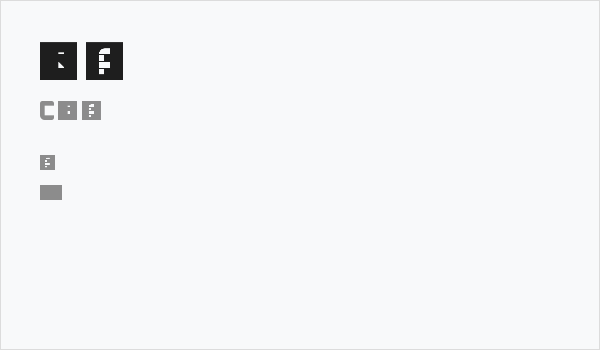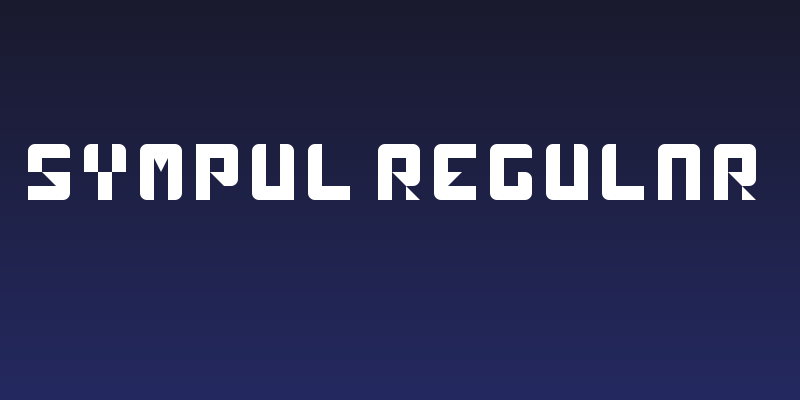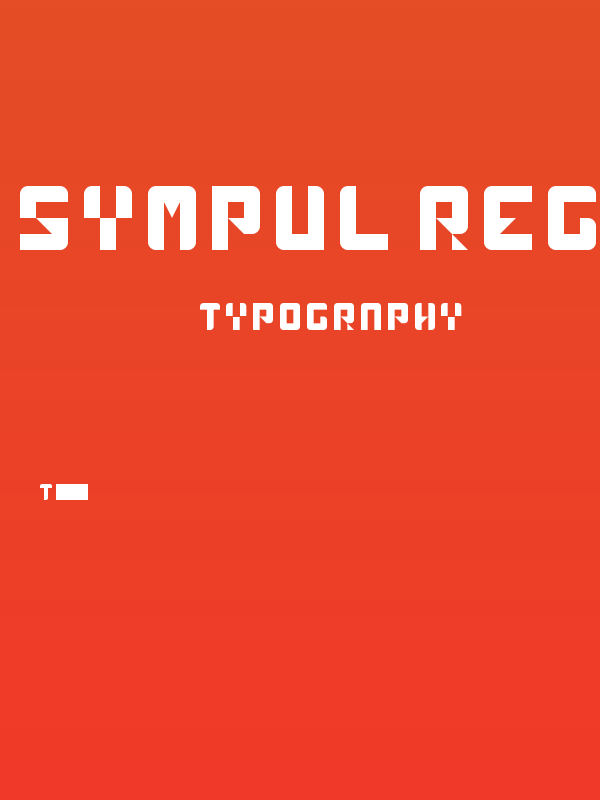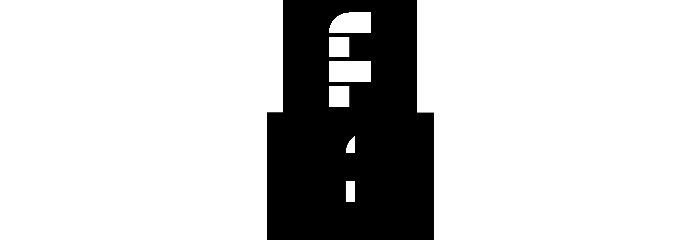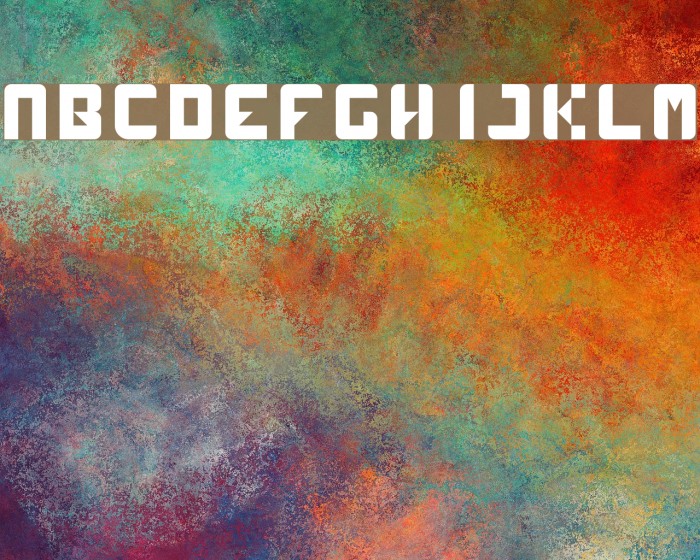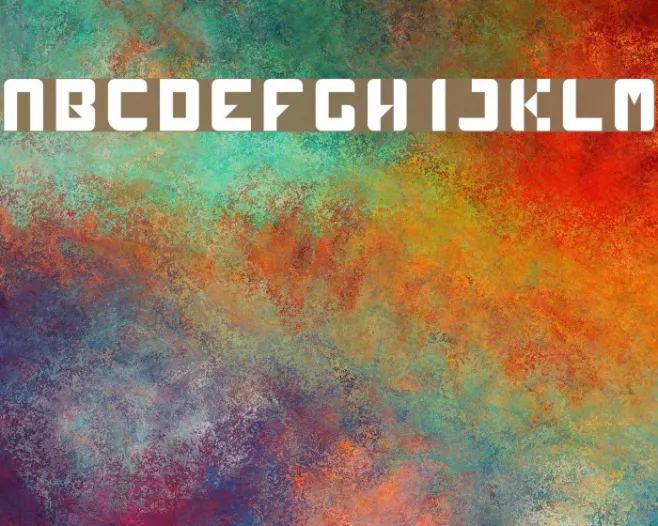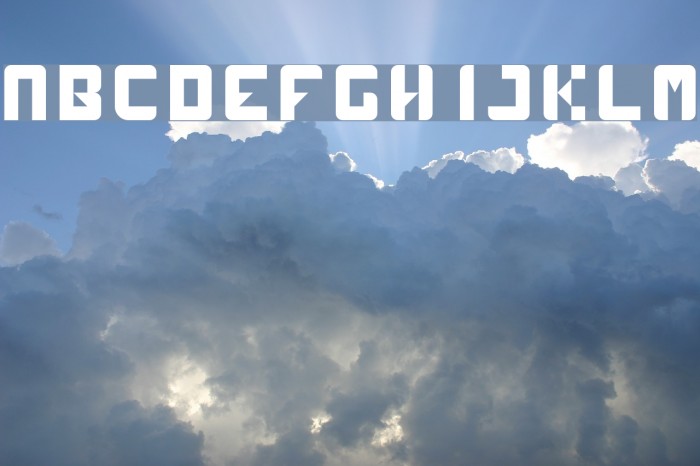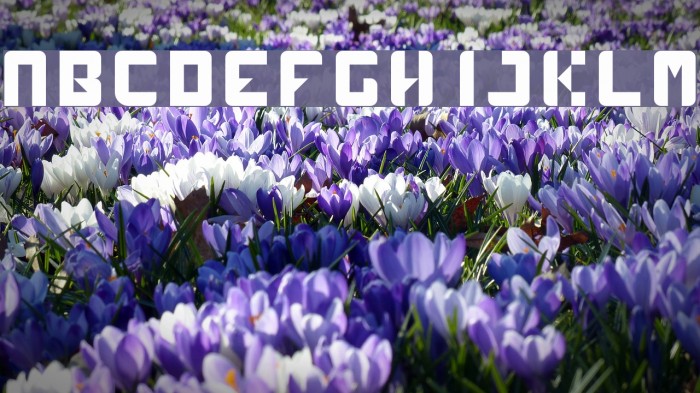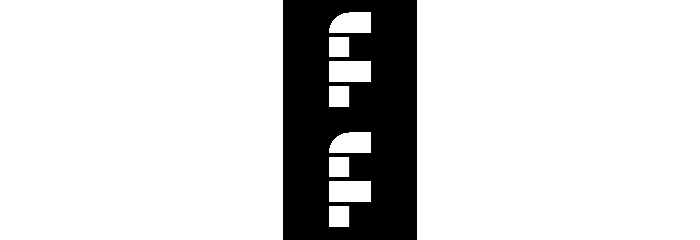
sympul Regular Font
sympul Regular Description
This font features a bold, geometric design with a futuristic flair. The characters are constructed with sharp angles and clean lines, giving it a modern and edgy appearance. The uppercase letters are particularly striking, with a blocky and robust form that commands attention. The lowercase letters maintain the same geometric style, ensuring consistency throughout the typeface. The numbers and special characters are designed to match the overall aesthetic, making this font versatile for various applications. Its unique style makes it suitable for projects that require a contemporary and bold statement.